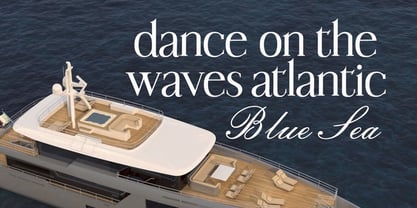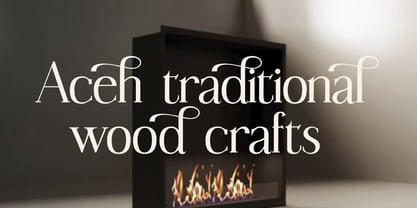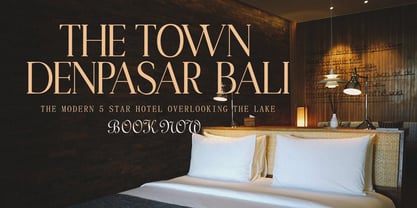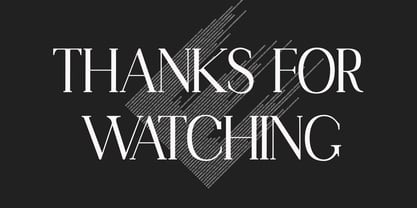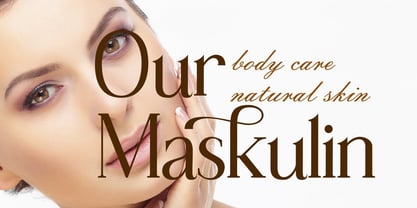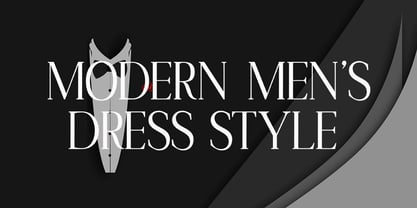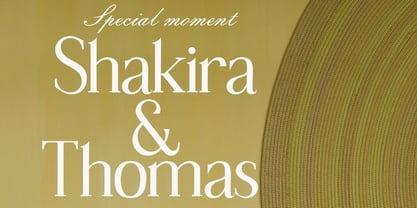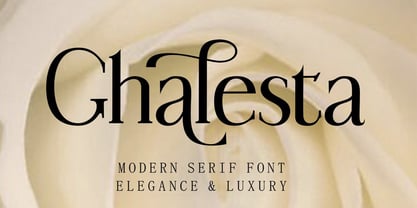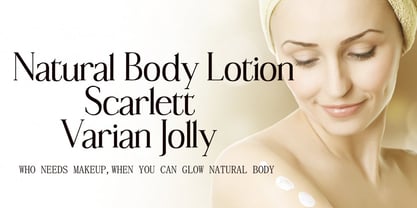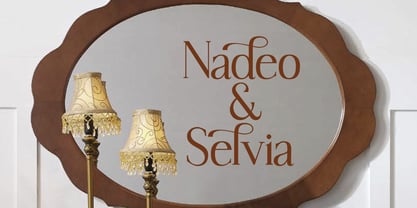
Ghalesta
by Ajibatype
The Ghalesta Font Family was designed by Jamhur and published by Ajibatype. Ghalesta contains 2 styles and family package options.
This serif typeface strikes the perfect balance between classic elegance and modern sophistication. With its distinctive style and refined details, it adds a luxurious touch to any design. Ideal for high-end logos, fashion branding, editorial layouts, movie titles, book covers, stylish apparel, quotes, and more—this font is crafted to stand out while remaining effortlessly graceful.